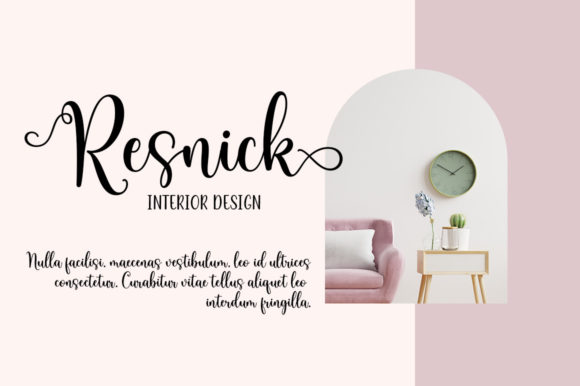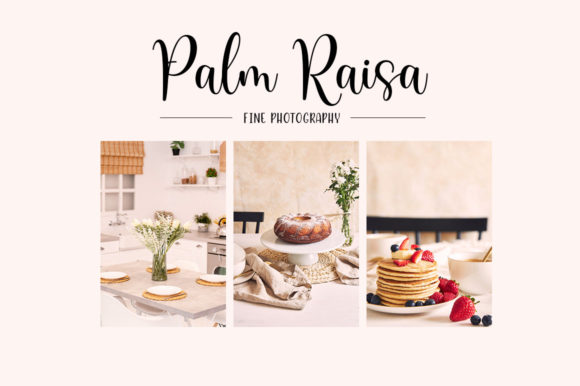
Ronsley Family Duo Font
db-ku.com - Script & Handwritten -- Ronsley Family Duo consists of two fonts designed to complement each other perfectly. Together or apart, these fonts are ideal for adding a chic and cheery touch to your crafts.